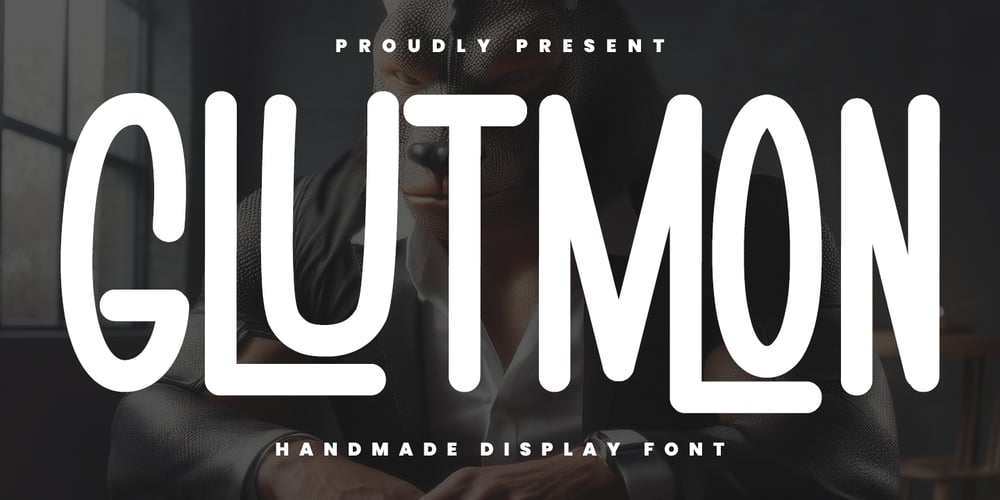
MC Glutmon
MC Glutmon font
MC Glutmon Font Family was designed by Gilang Maulana and published by Maulana Creative. MC Glutmon contains 1 styles and family package options. Glutmon is a handmade modern retro font. With medium stroke, fun character with a bit of ligature. To give you an extra creative work Glutmon font support multilingual more than 100+ language. This font is good for logo design, Social media, Movie Titles, Books Titles, a short text even a long text letter and good for your secondary text font with sans or serif. Make a stunning work with Glutmon font.